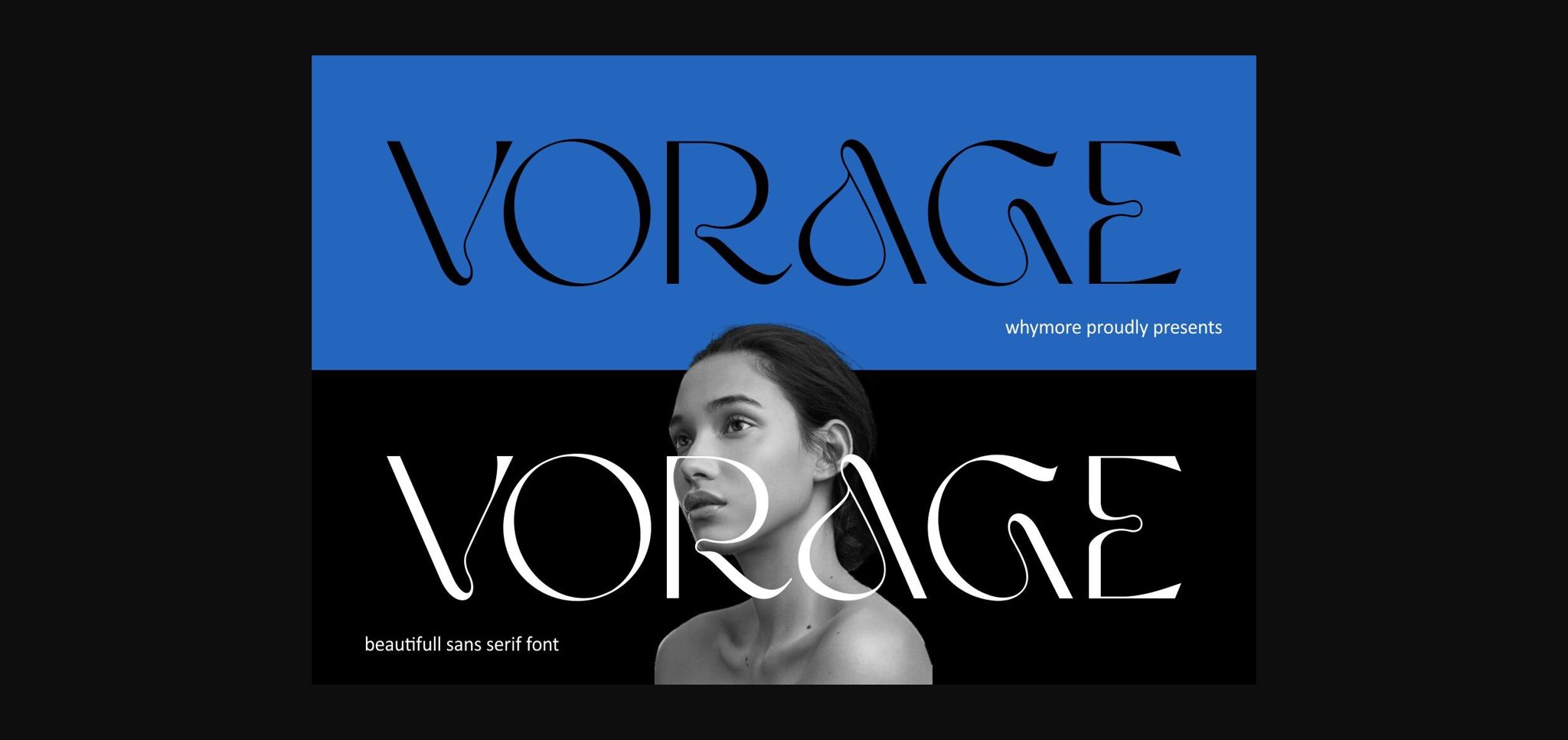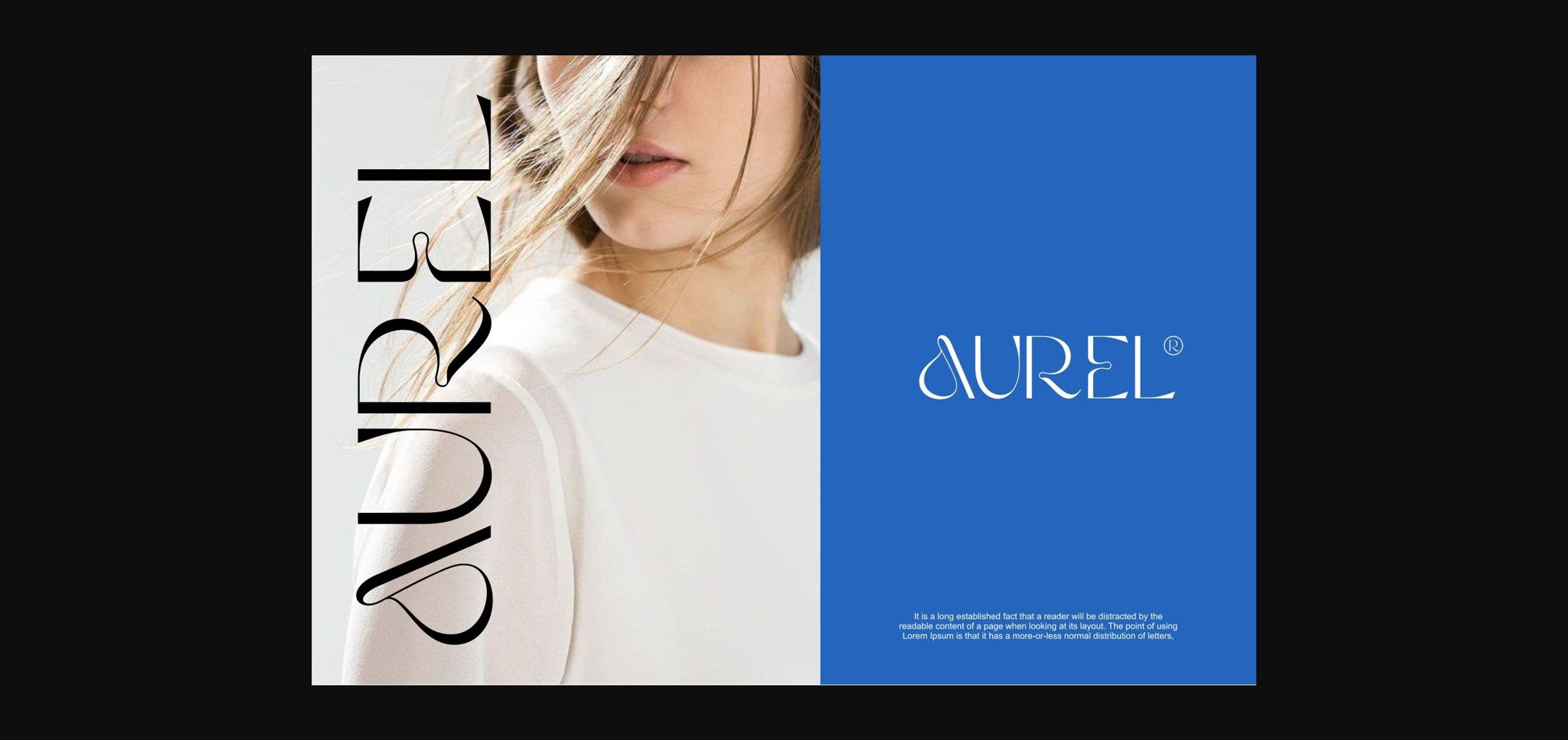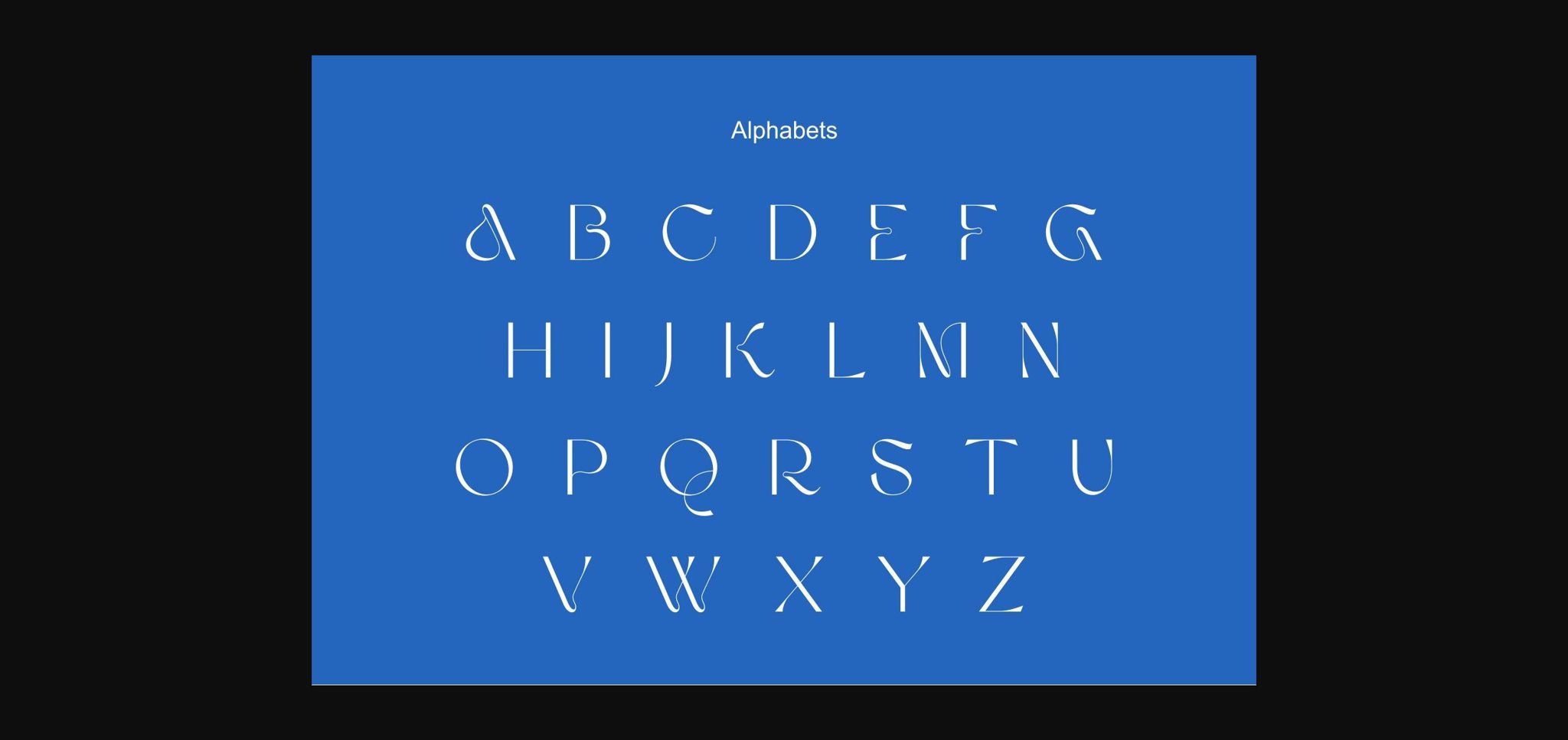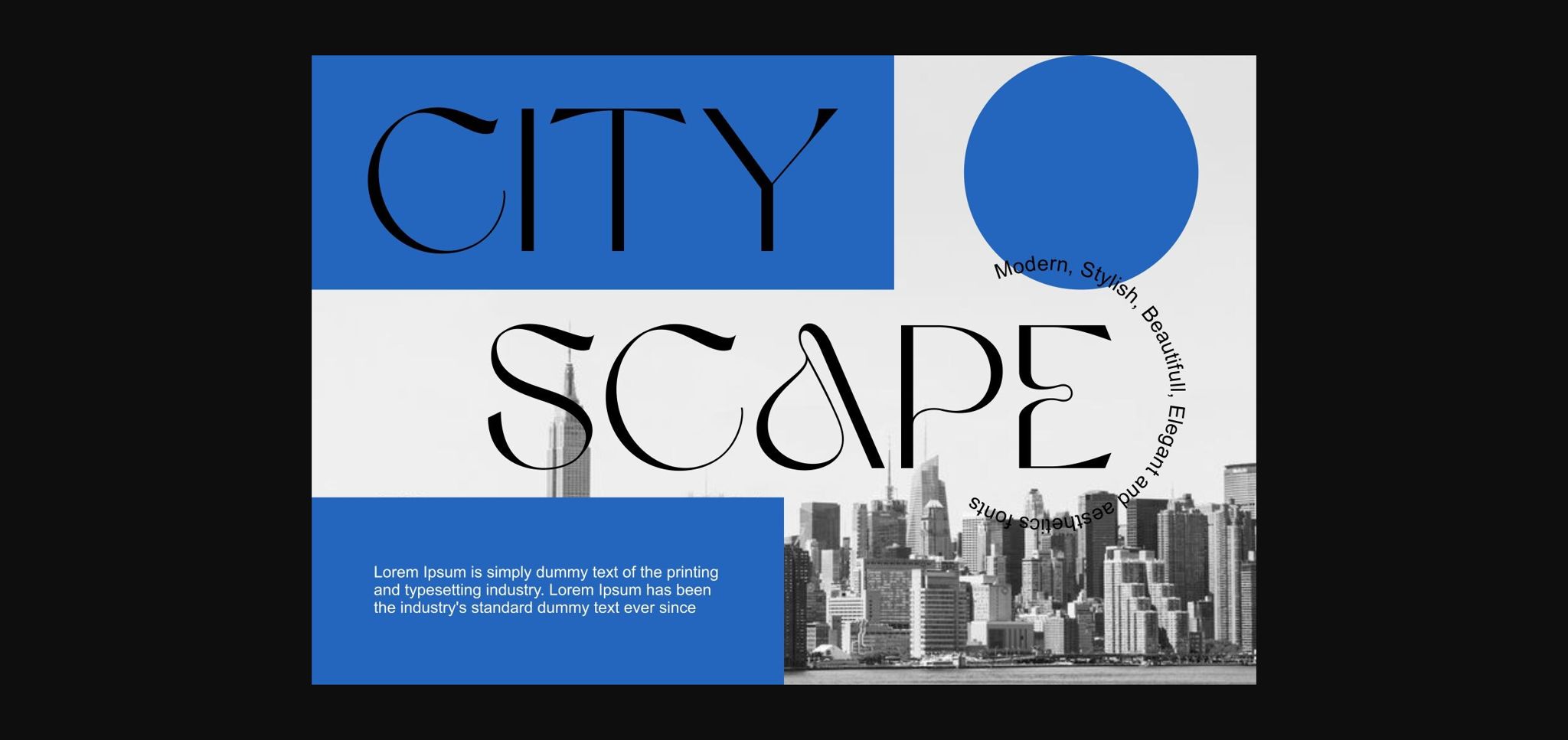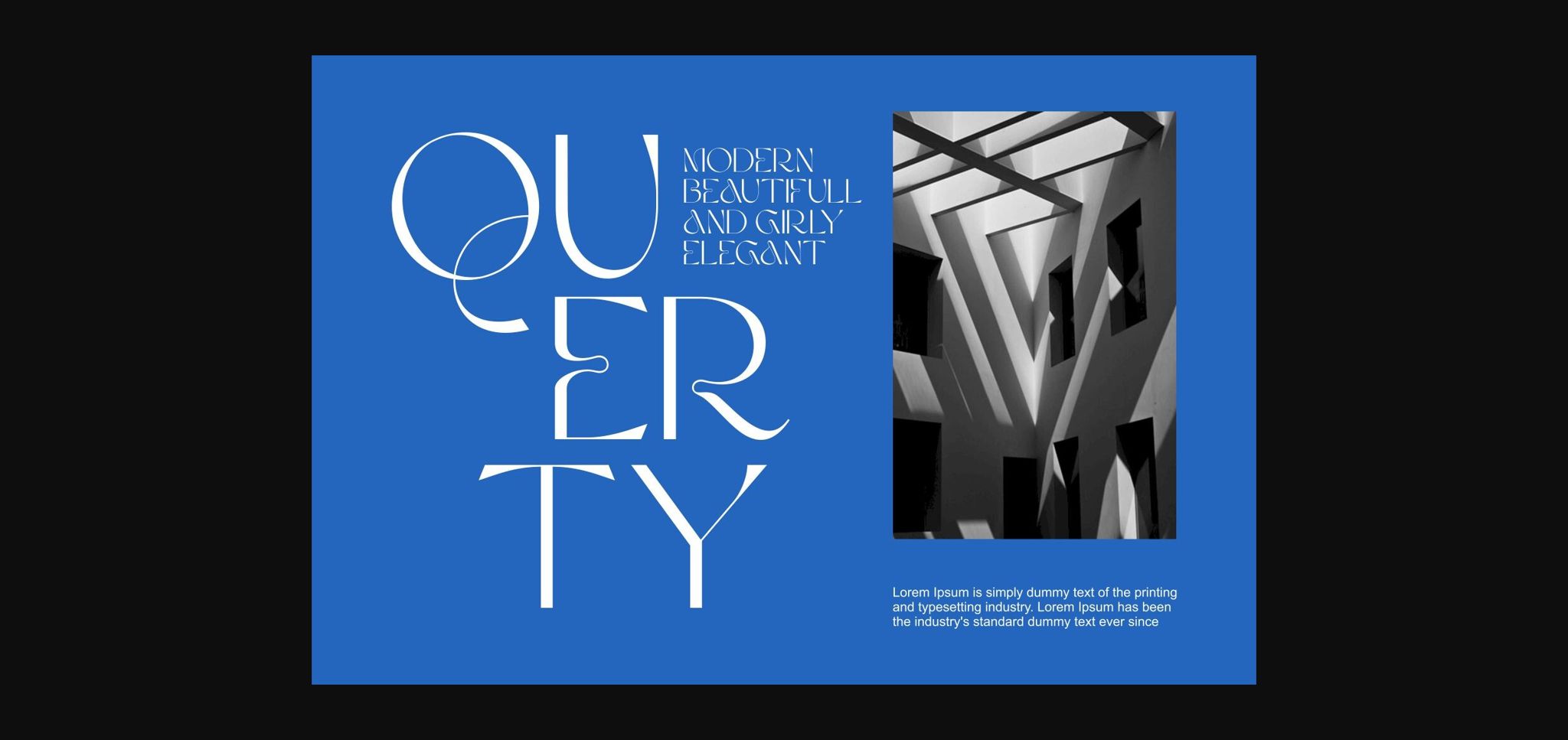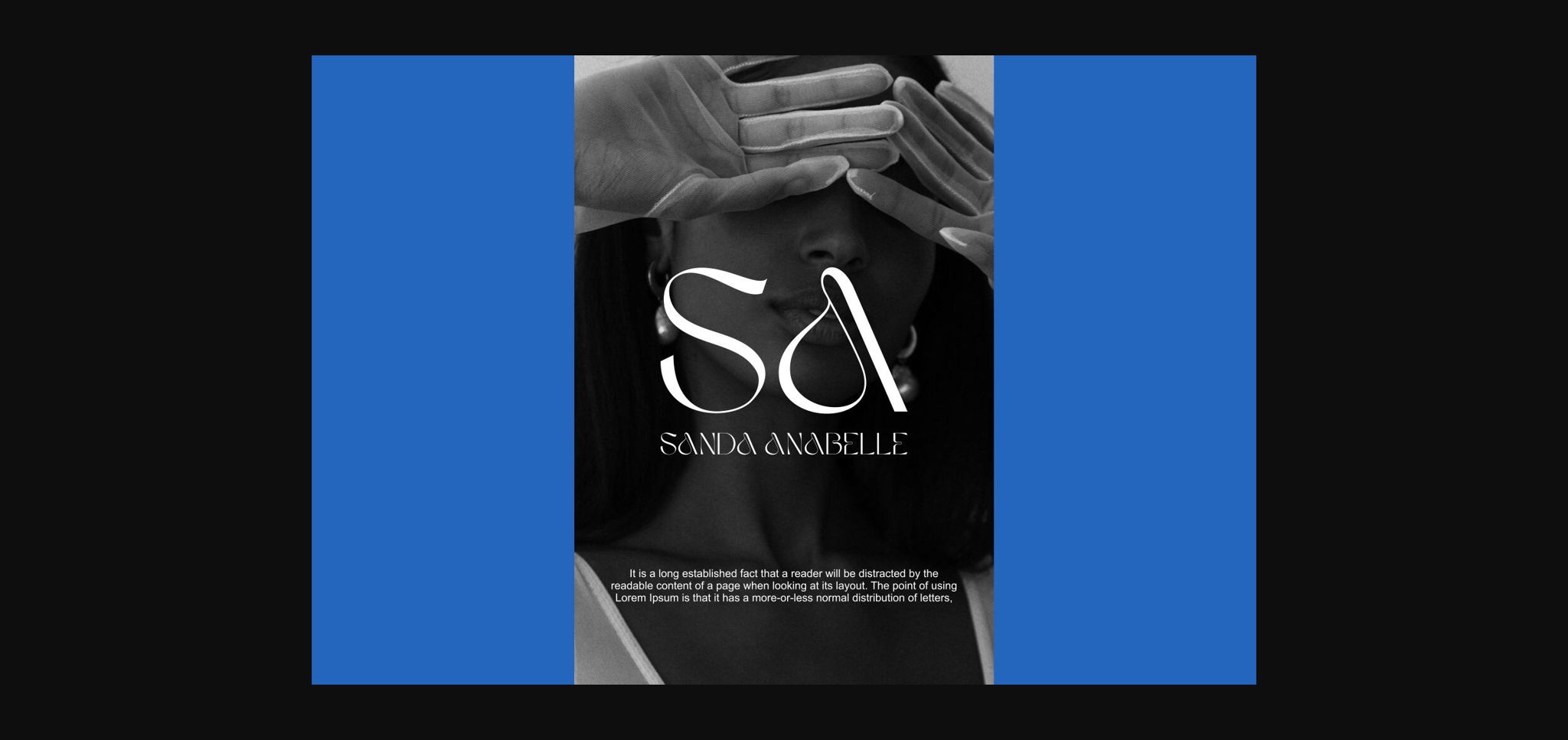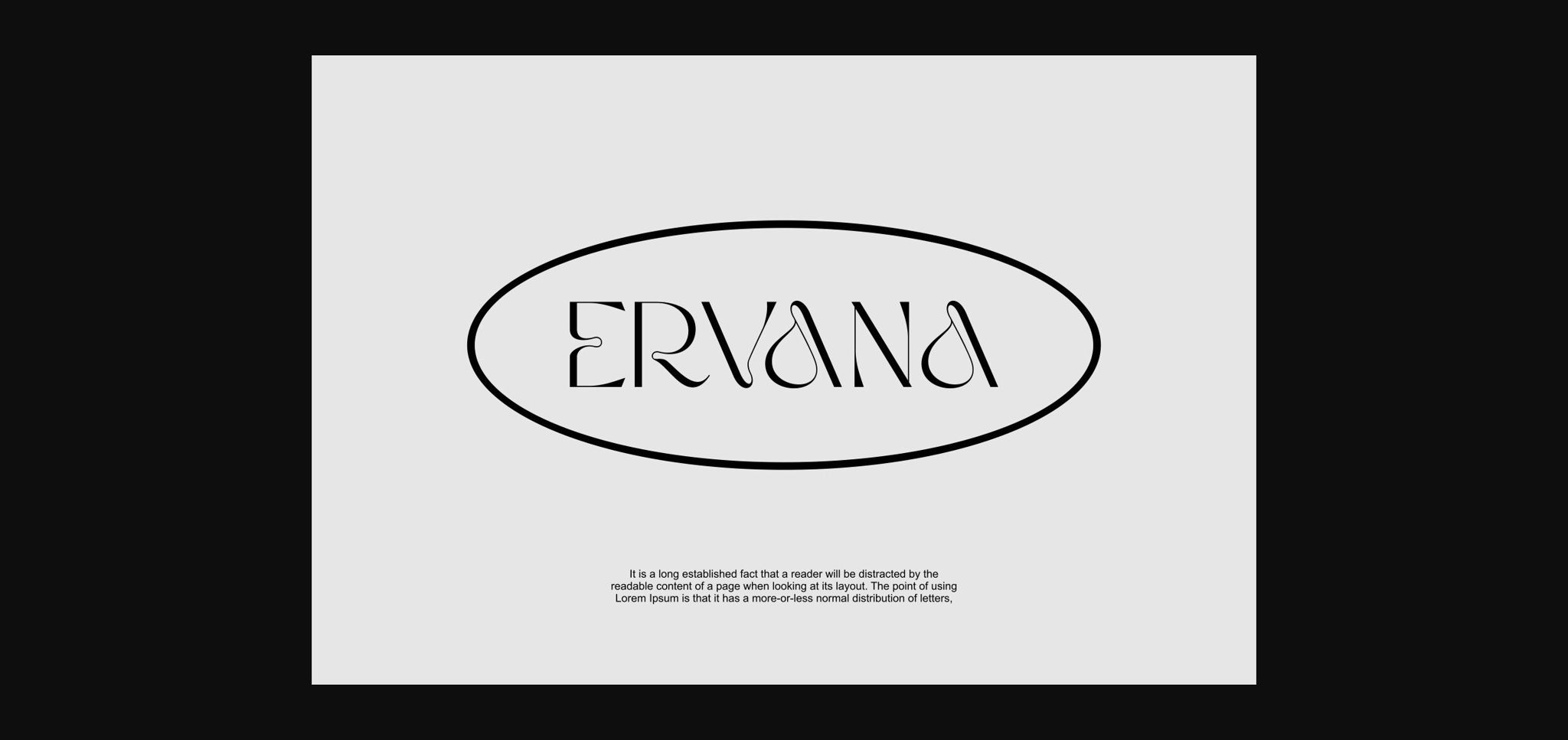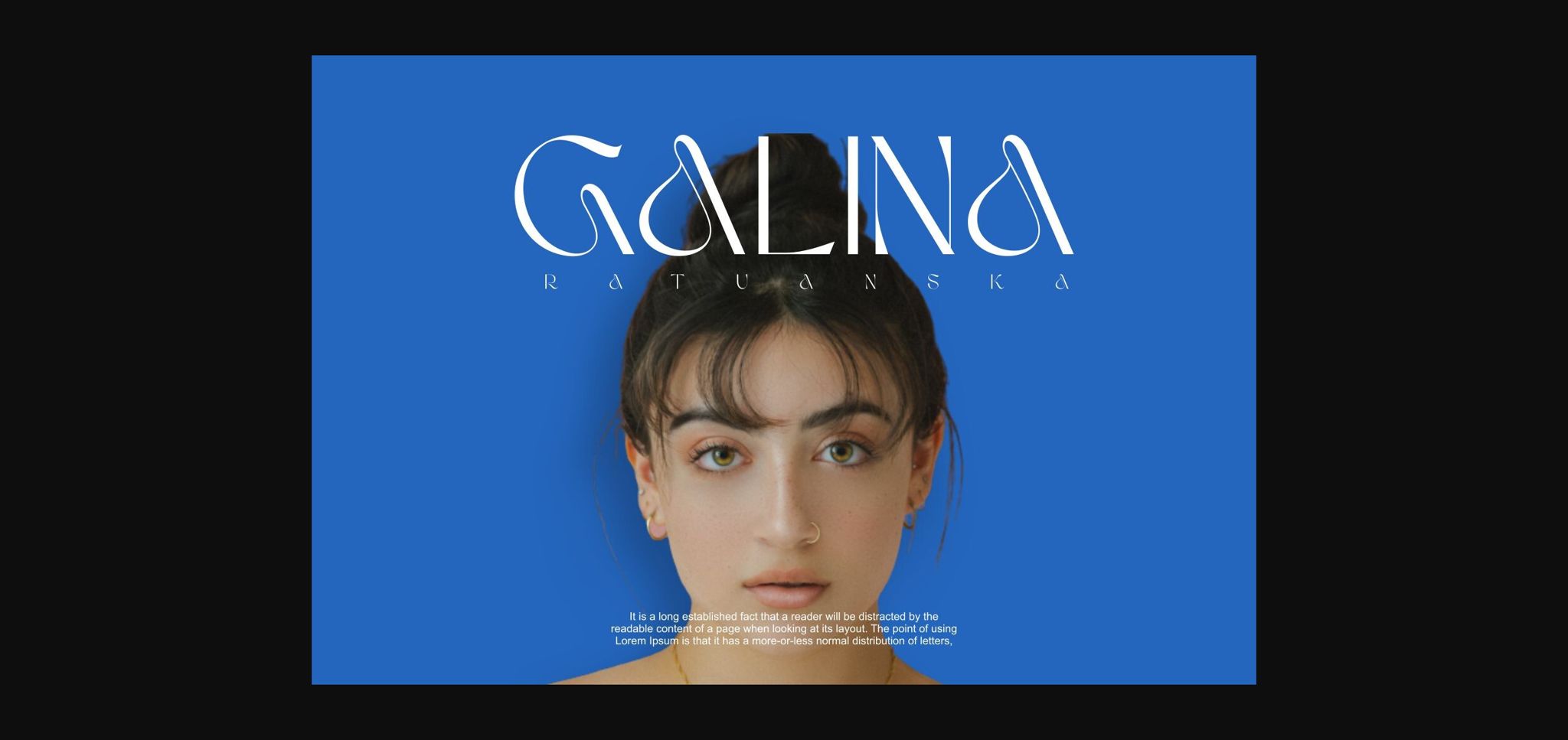
Vorage Font
About Vorage Font
Well, Vorage will brings you to the next level of a stunning typeface that can showcase elegance but with a minimalist form.
The curves at each end of the letter ornament illustrate that this font is very ready to live in the present and the future.
Minimalist yet luxurious and classy. Whether used for branding, Design templates, in the form of invitations, calendars, posters, headlines, brochures, promotional tools or editorial designs, Vorage was created to meet the visual needs of a modernity age.
The versatile nature of the Vorage font makes it suitable for headlines, logos and lettering. Its legibility ensures clear communication yet invites a sharp eye catch. Vorage is the perfect choice for those looking for a typeface that embodies the Future and sophistication that will not be limited by time. With a futuristic style and Combined between serif and sans fonts it can bring you to a different visual work.